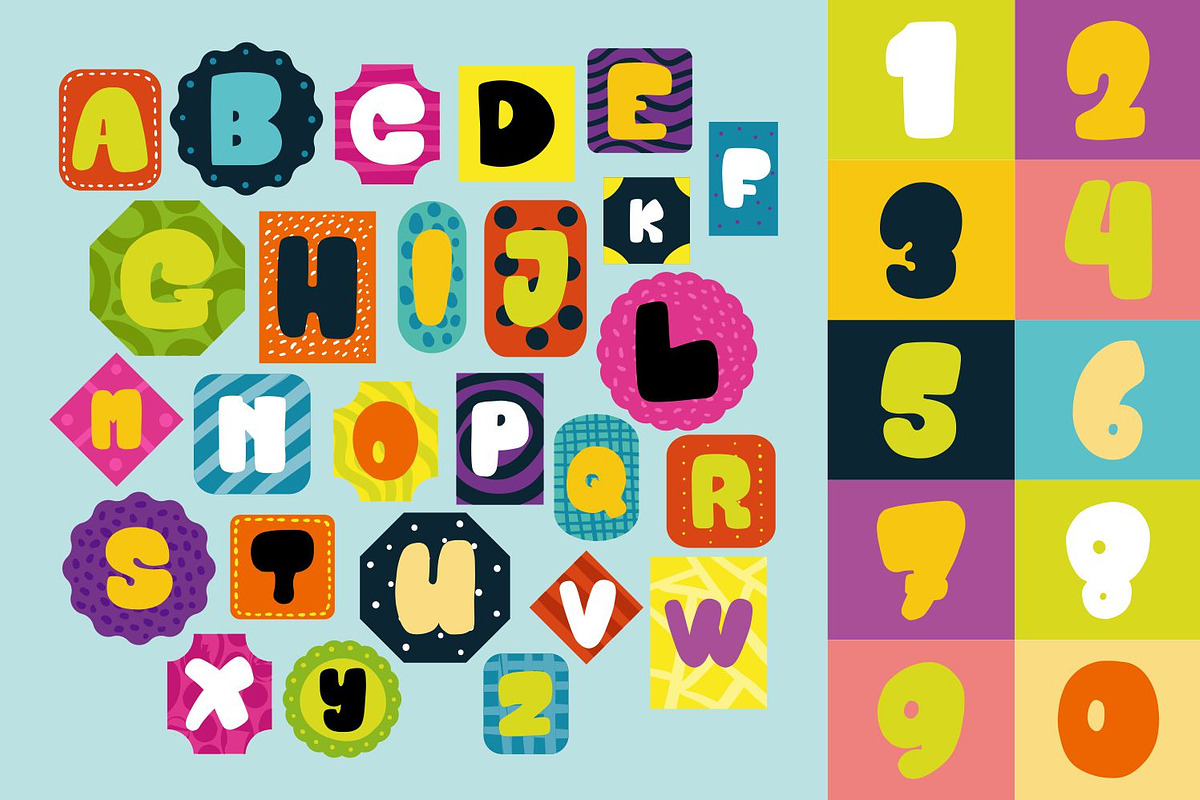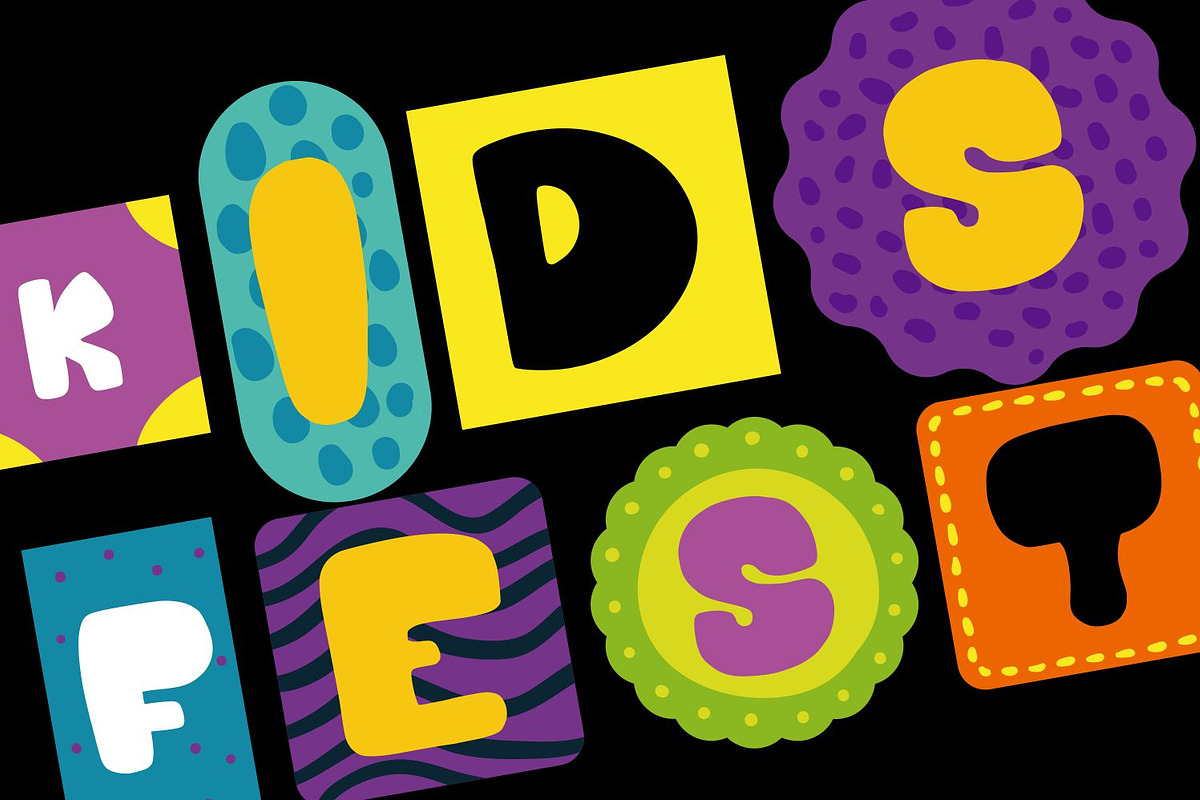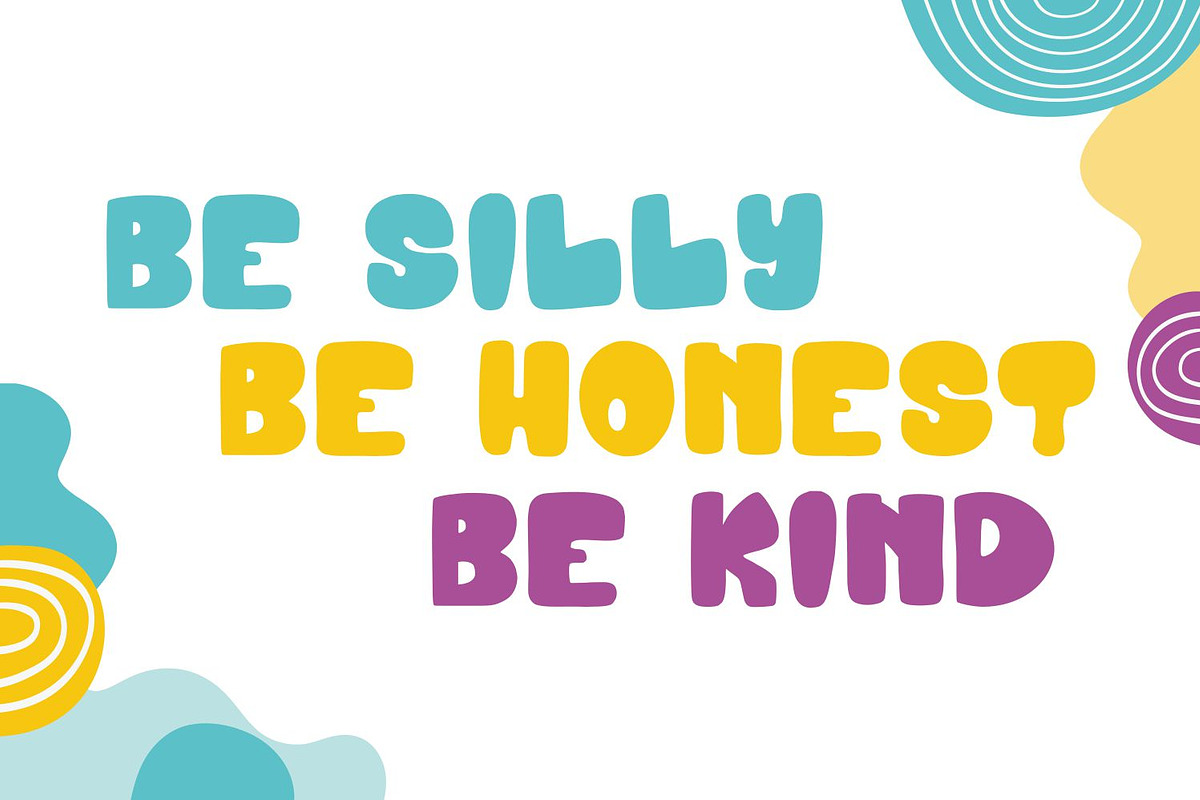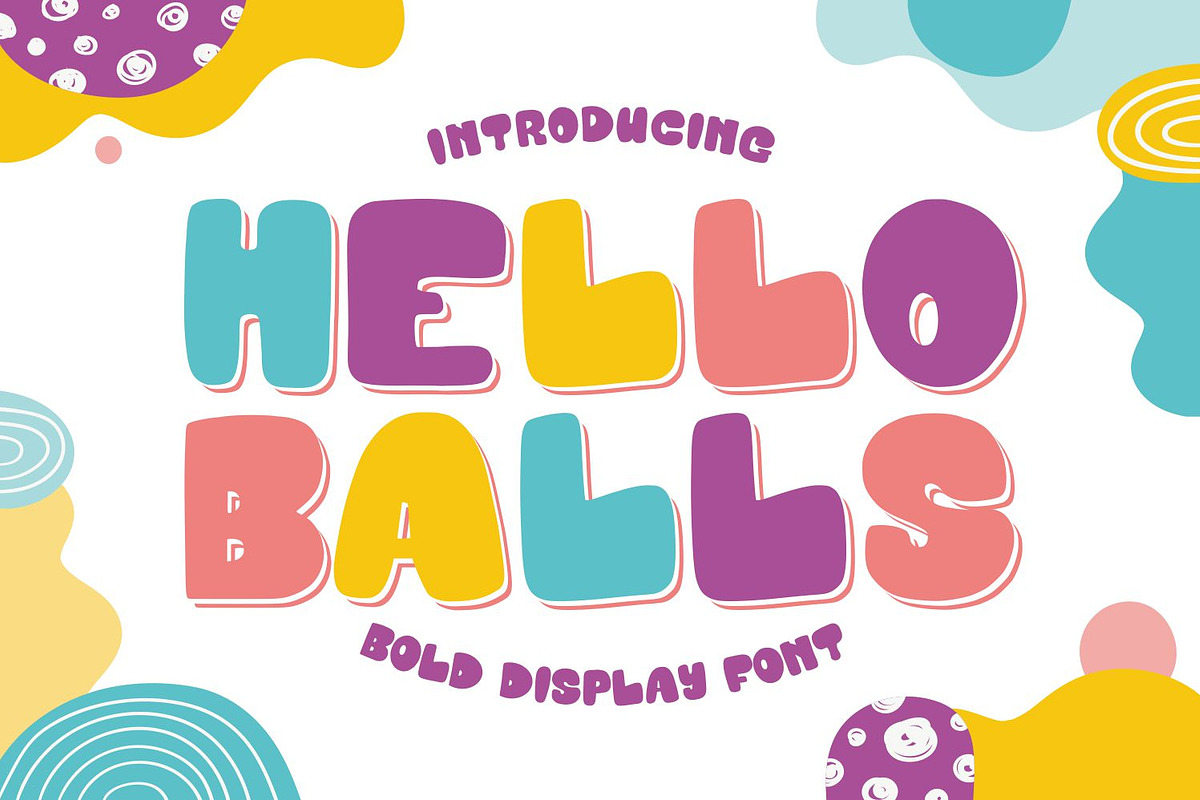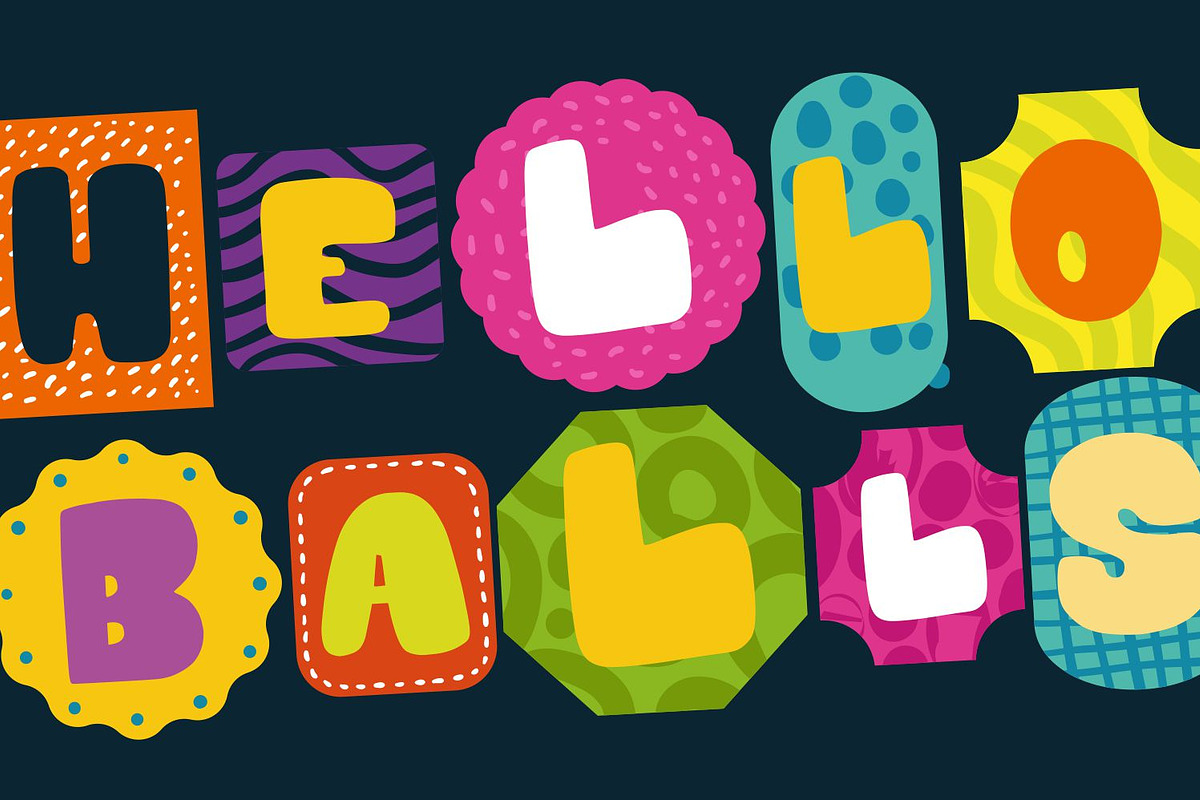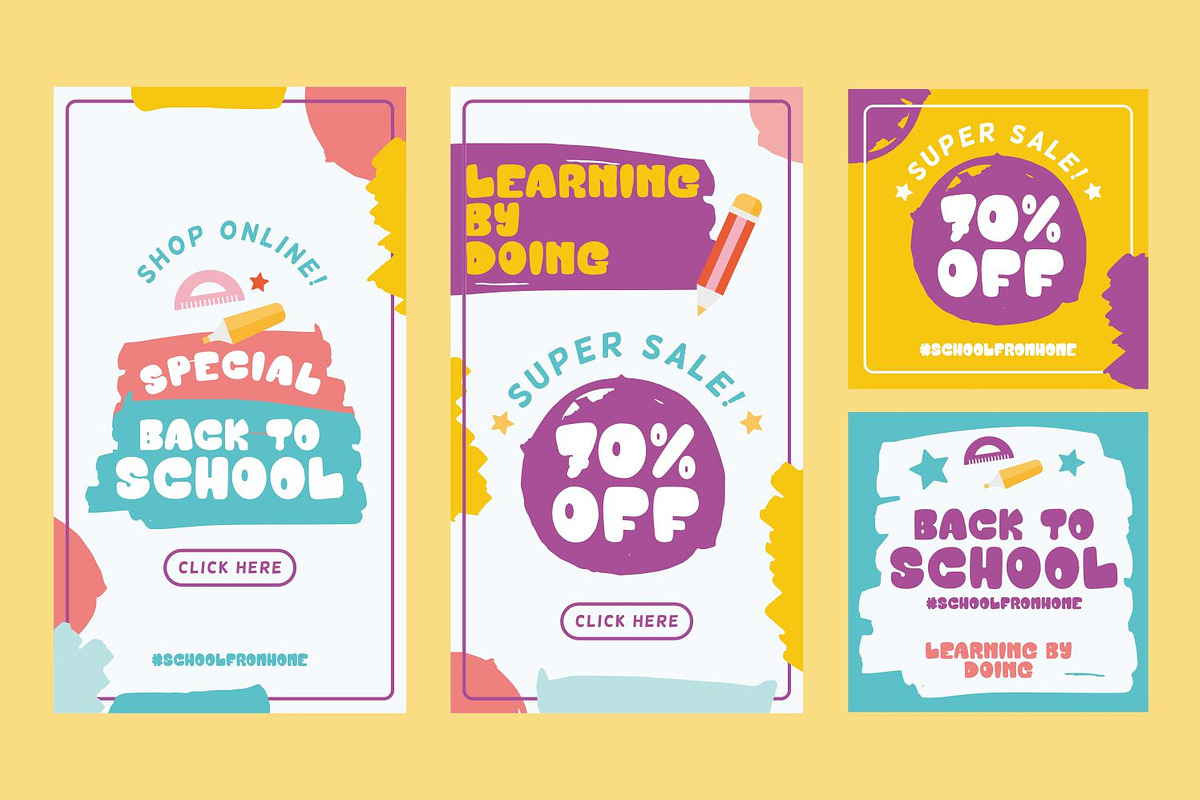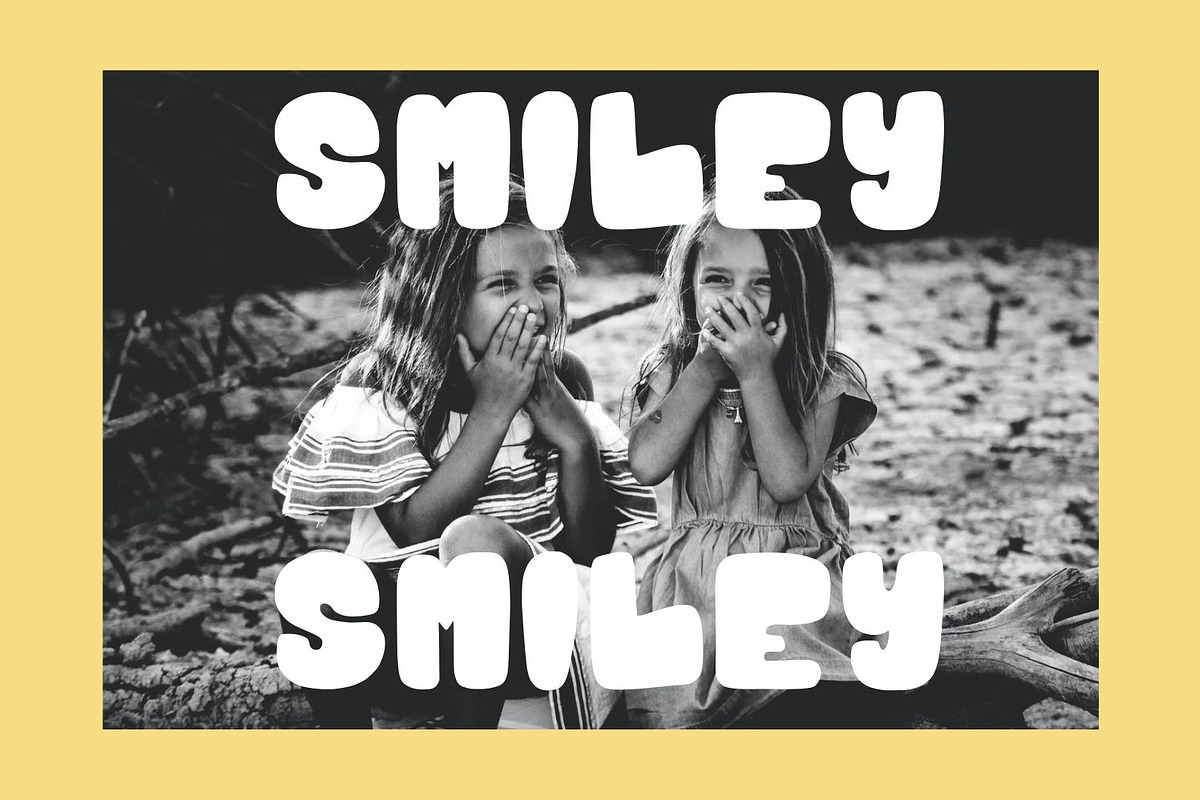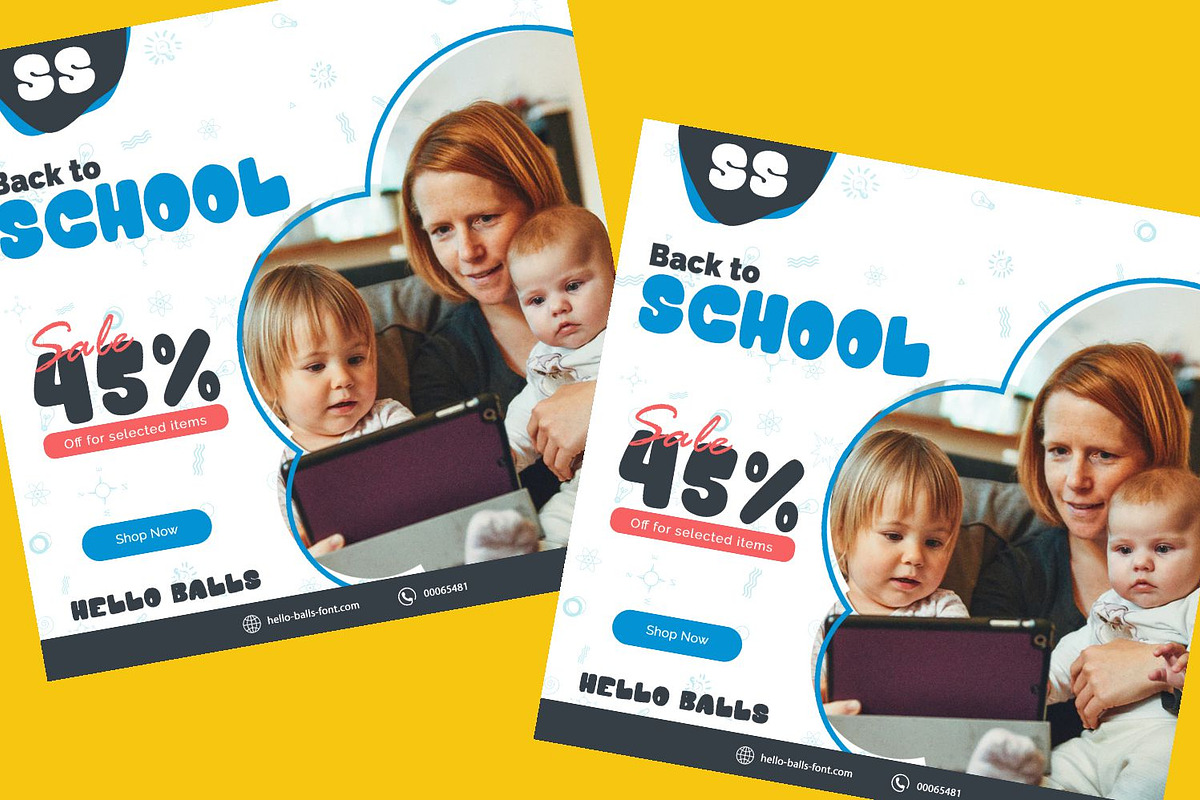
Hello Balls - Bold Font
Introducing Hello Balls - Bold Font
Hello Balls is the perfect font for all your fun designs. The main font file is equipped with ordinary characters. Everything is made with the bold and smooth brush, and everything is the same size as Hello Balls, so you can be sure they will work well together! It is suitable for you to use in making t-shirt design, quote, label, packaging, logo type, or long writing. Because we have compiled kerning and matrices that are tailored to your needs.